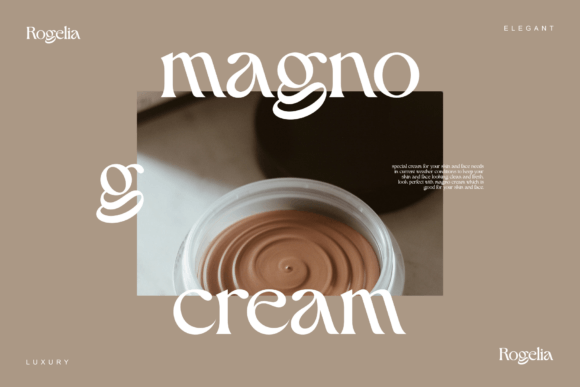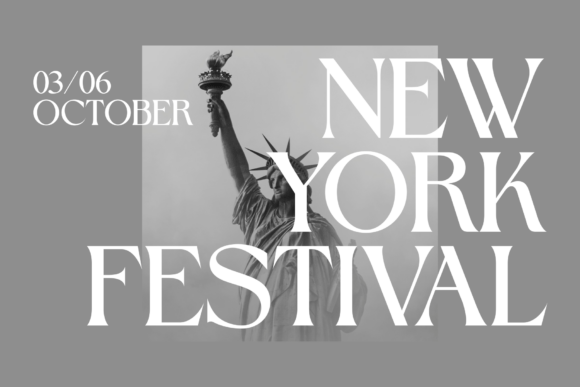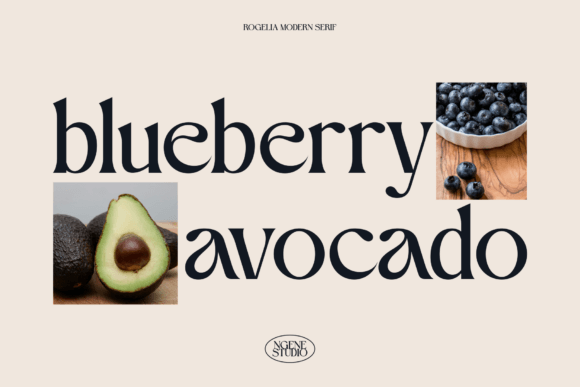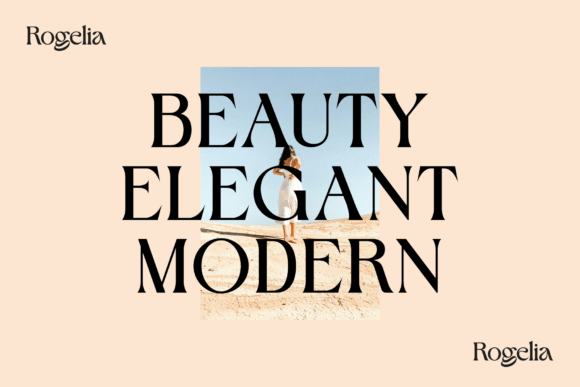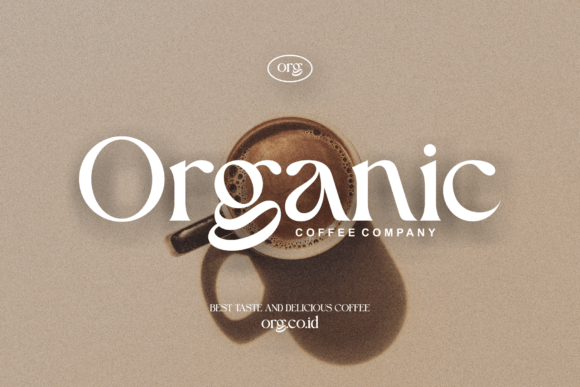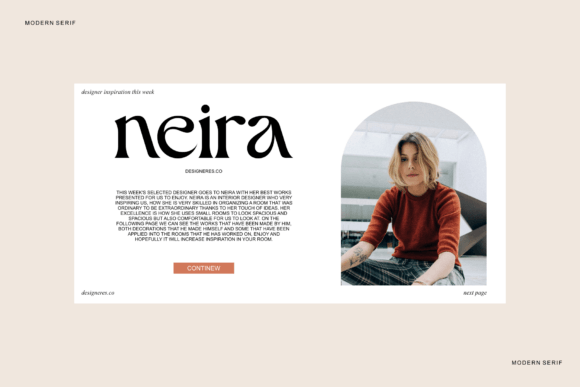
Introduction to Rogelia Font
Rogelia vintage style serif font with an elegant and modern touch, this font draws from a wide variety of characters.
This font has several alternatives built into it, perfect for creating logo designs, badges, web fonts, magazines and more With a very strong font character will make your design different and more attractive.
Rogelia Font offers exceptional quality and versatility, making it a valuable addition to your design toolkit. Whether you’re creating for personal projects or commercial use, Rogelia Font delivers professional results.